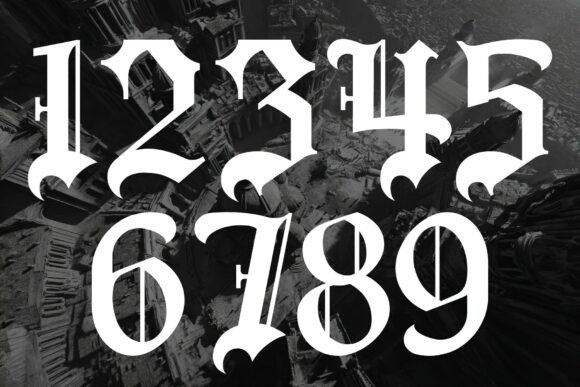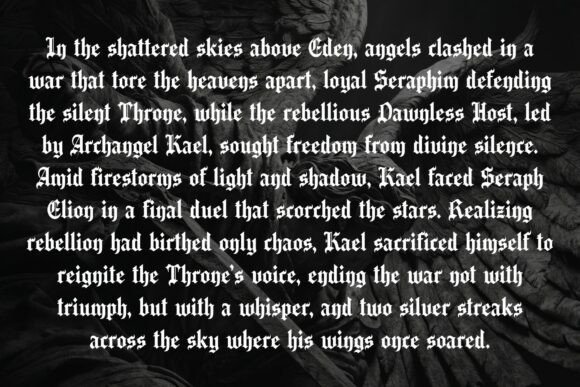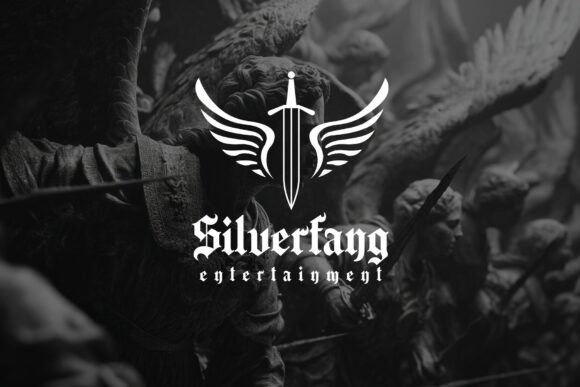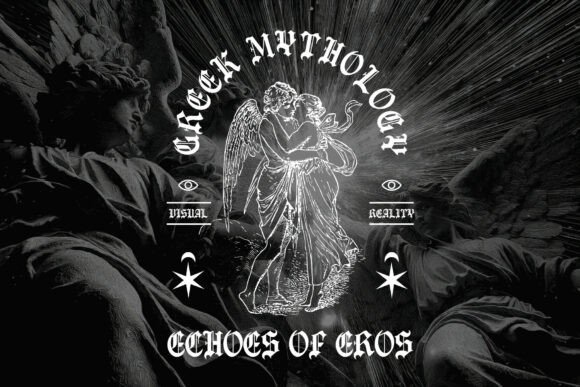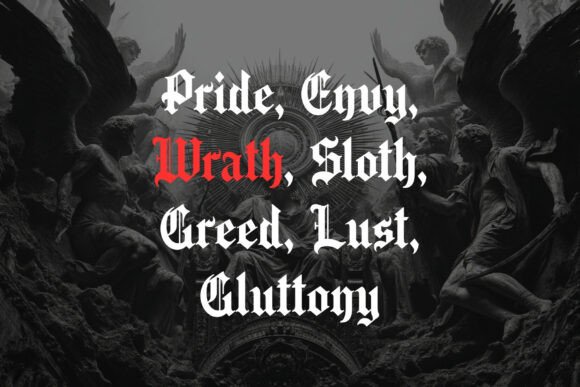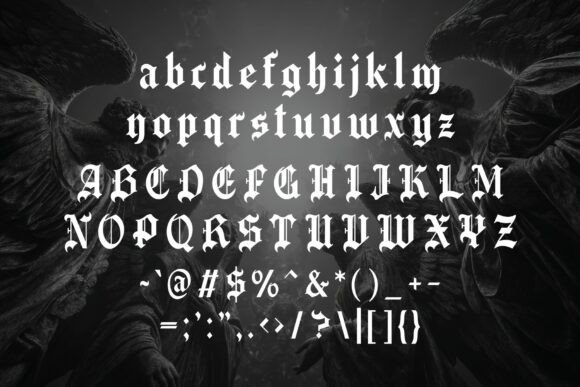
Discover the Timeless Elegance of Arkhaven Font
I’ll never forget the design project that led me to Arkhaven Font. I was working on a fantasy book cover, and my client wanted a title that would transport readers to a medieval world. I scoured font libraries, but nothing seemed quite right – until I stumbled upon Arkhaven. Its dramatic, gothic blackletter style instantly captured the essence of ancient manuscripts and mystical tales. I knew I’d found the perfect fit.
A Personal Review of Arkhaven Font
- ✨ Timeless elegance: Arkhaven’s refined serifs, ornate curves, and dramatic contrast evoke a sense of power and grace.
- ✅ Versatility: With 197 glyphs and support for 65 languages, this typeface is perfect for global storytelling.
- 🔥 Epic presence: Arkhaven commands attention, making it ideal for fantasy books, historical branding, gothic logos, album artwork, and elegant invitations.
While Arkhaven is an exceptional font, there are a few things to keep in mind:
- ⚠️ Legibility at small sizes: Due to its intricate design, Arkhaven may not be the best choice for body text or small font sizes.
- 🤔 OpenType feature support: Some platforms may not support the full range of OpenType features, which could limit its use in certain design applications.
- Experiment with OpenType features, such as stylistic alternates and glyphs, to add visual interest.
- Explore the various OpenType features, such as ligatures, stylistic sets, and swashes.
The Backstory Behind Arkhaven Font
Arkhaven’s design is inspired by the majestic lettering of Old English manuscripts, cathedral inscriptions, and ancient tomes. Its creator sought to capture the essence of these timeless works and bring it to life in a modern typeface. The result is a font that radiates both power and elegance, perfect for designers looking to evoke a sense of mystery, spirituality, or medieval grandeur.
Q: What type of projects is Arkhaven best suited for?
A: Arkhaven is ideal for fantasy books, historical branding, gothic logos, album artwork, elegant invitations, and any project that requires a sense of mystery, spirituality, or medieval grandeur.
Q: Does Arkhaven support non-English languages?
A: Yes, Arkhaven supports 65 languages, making it a versatile choice for global storytelling.